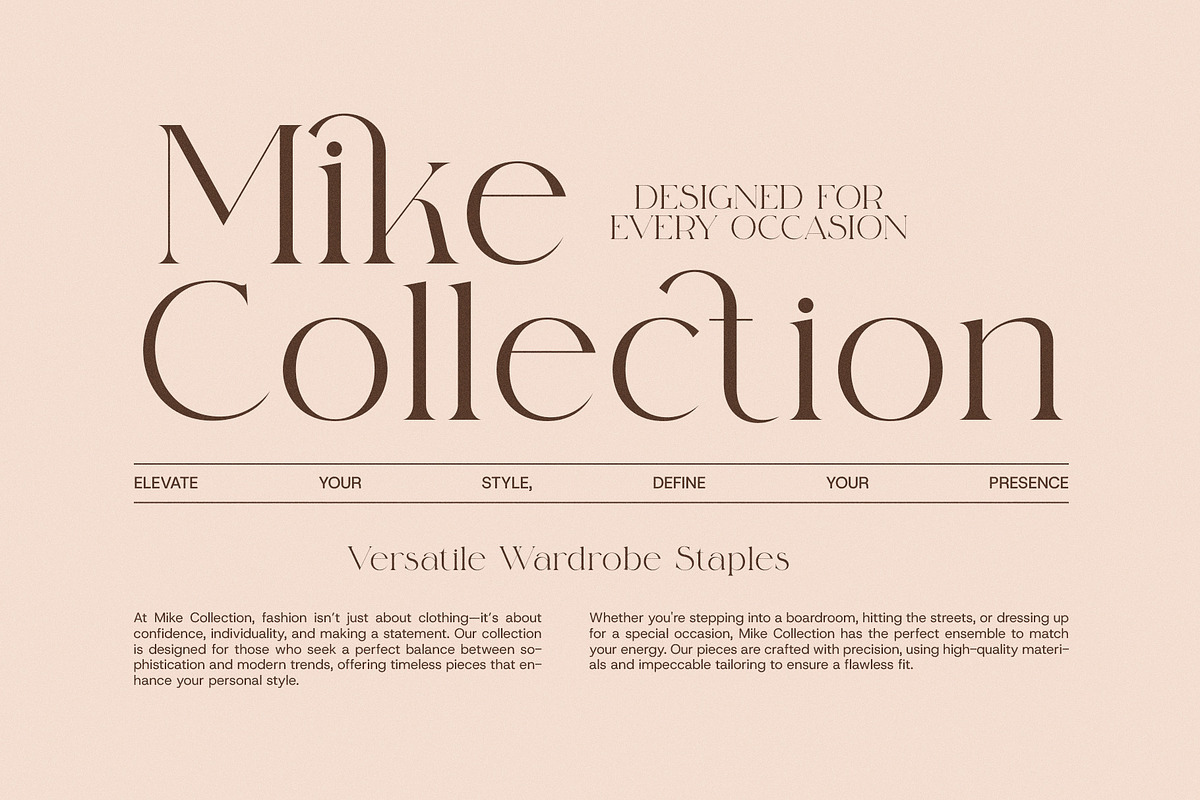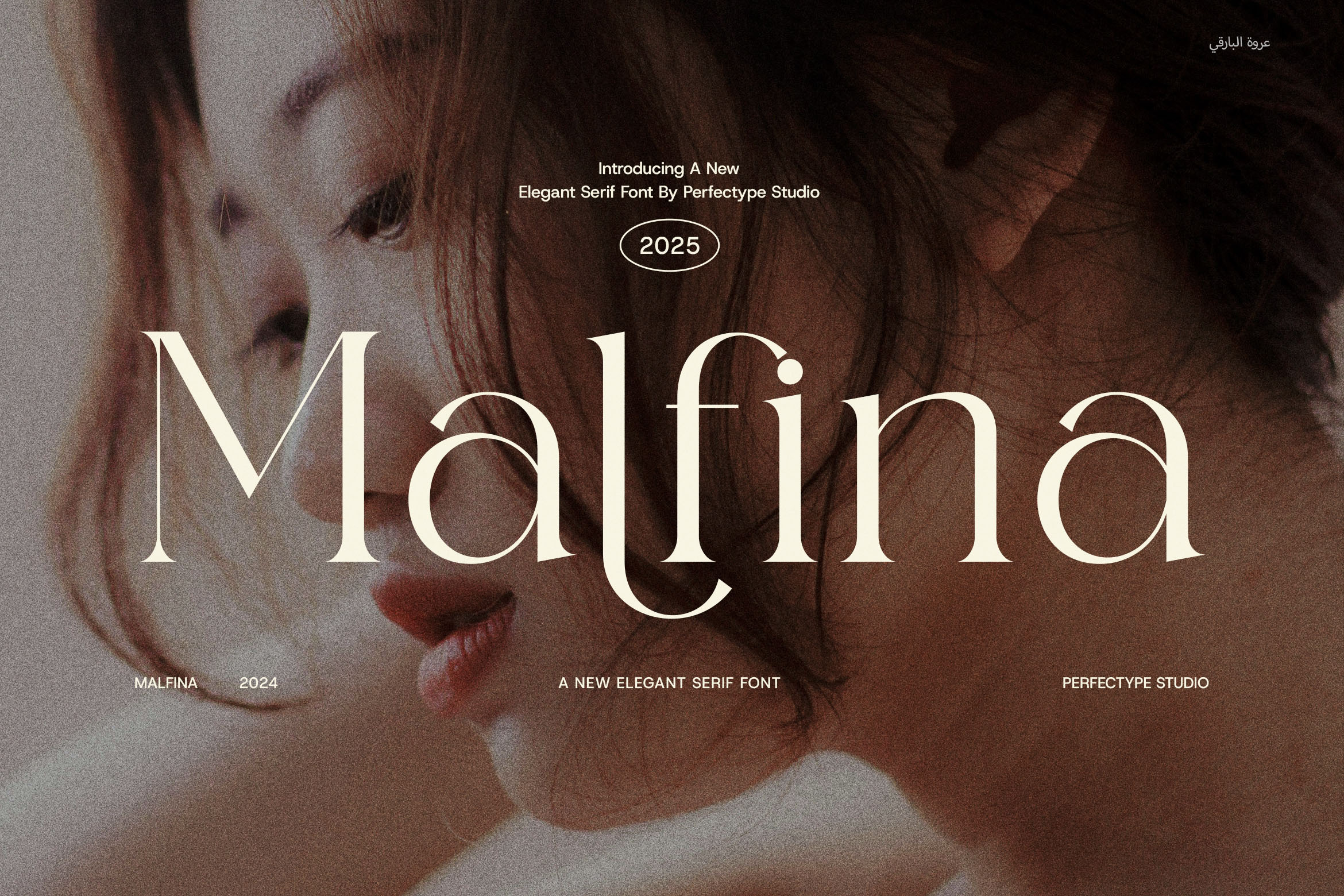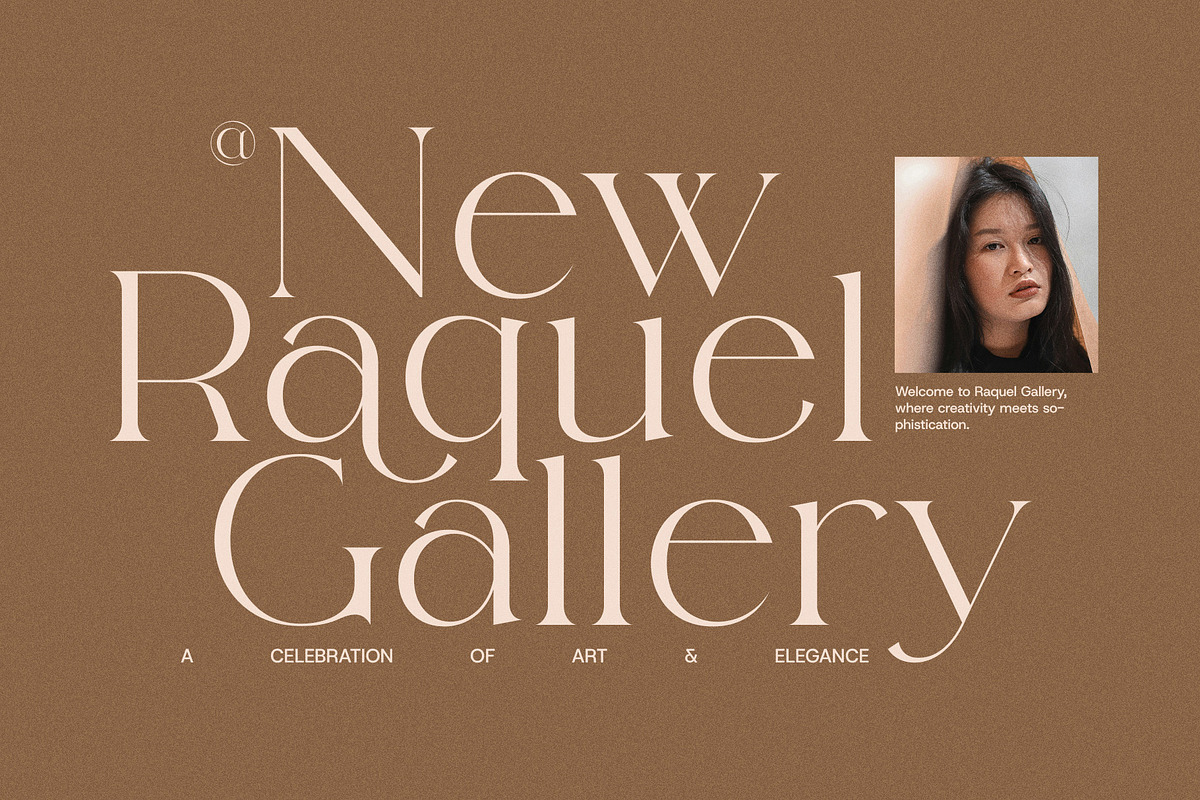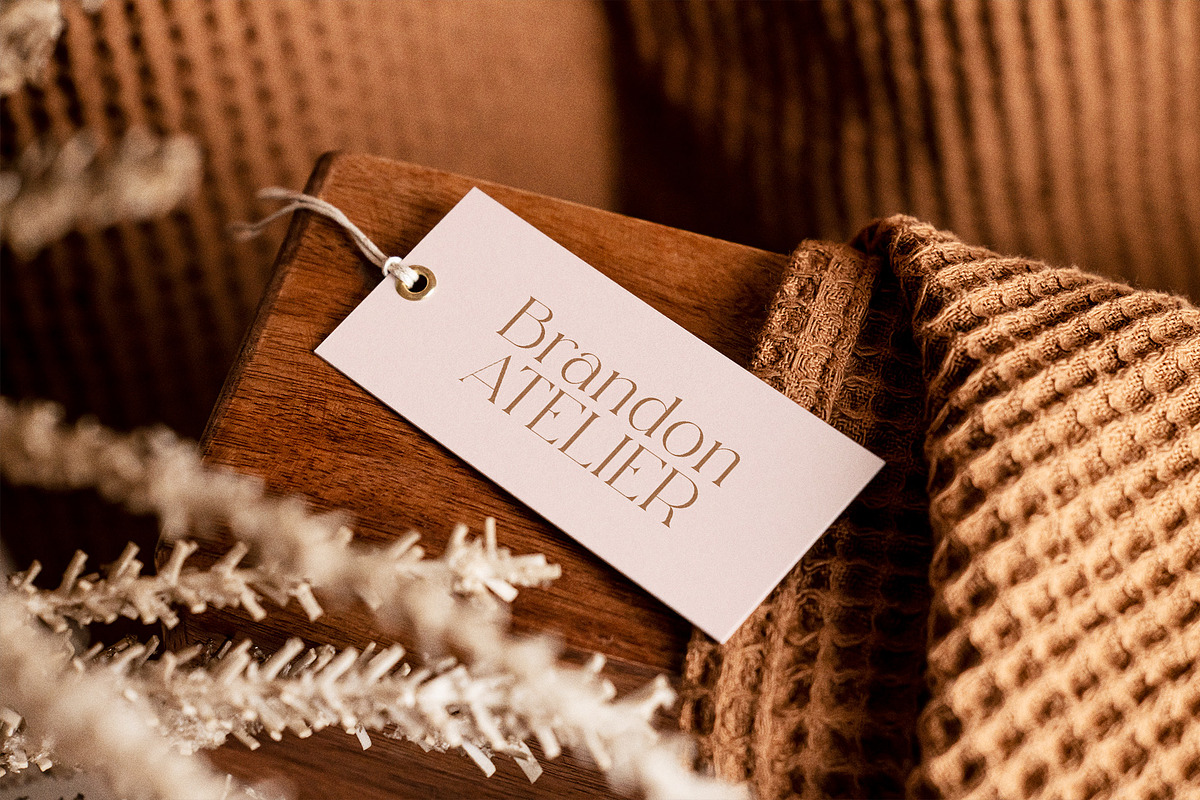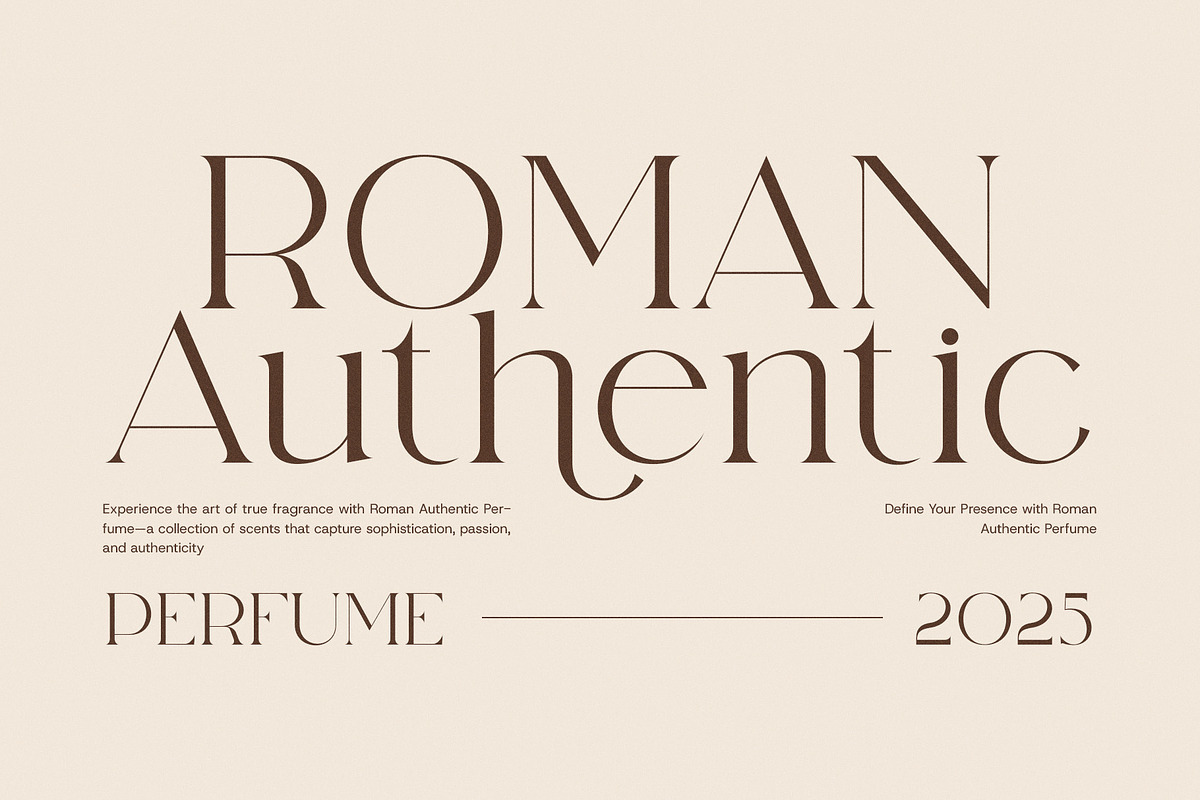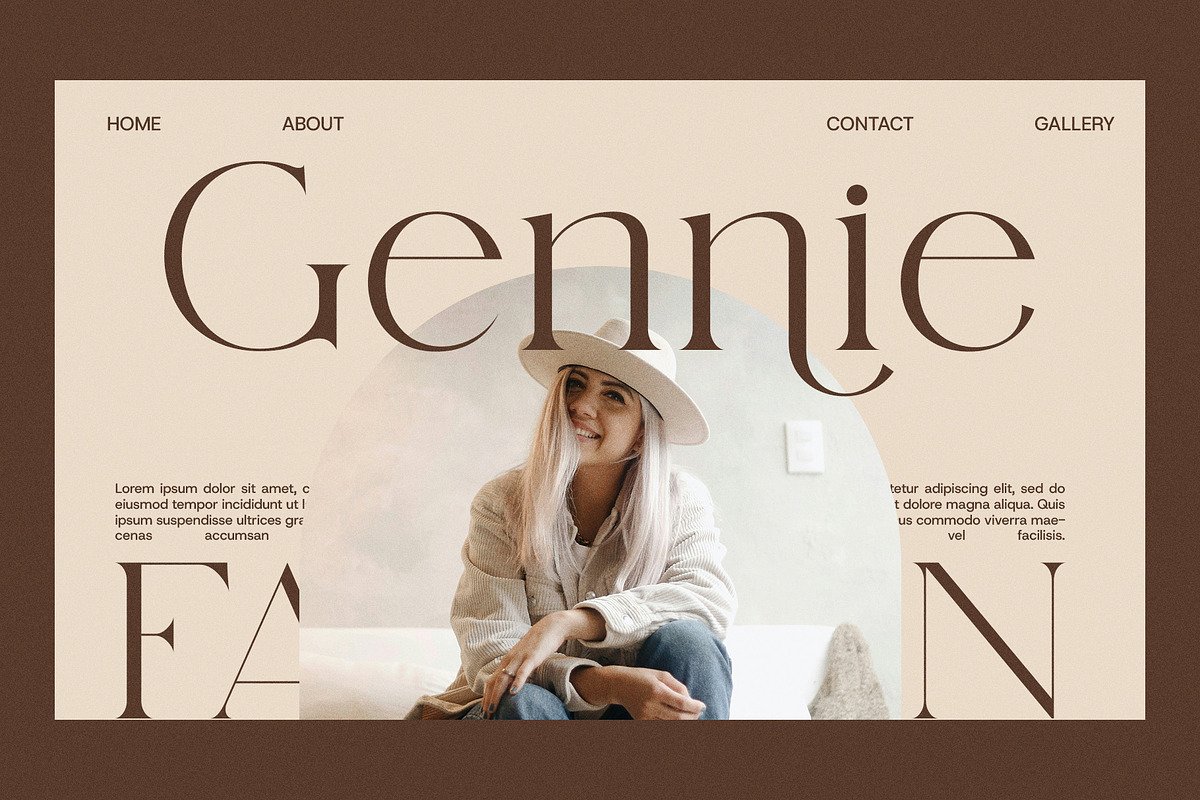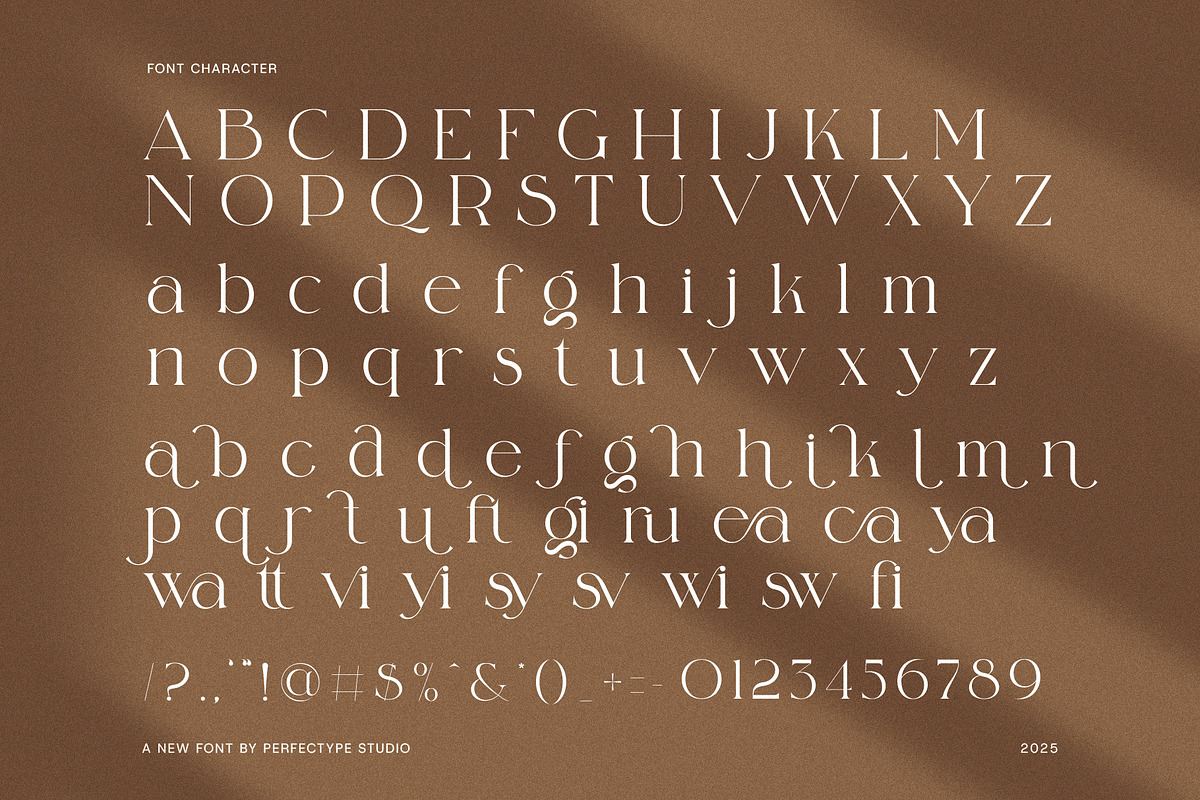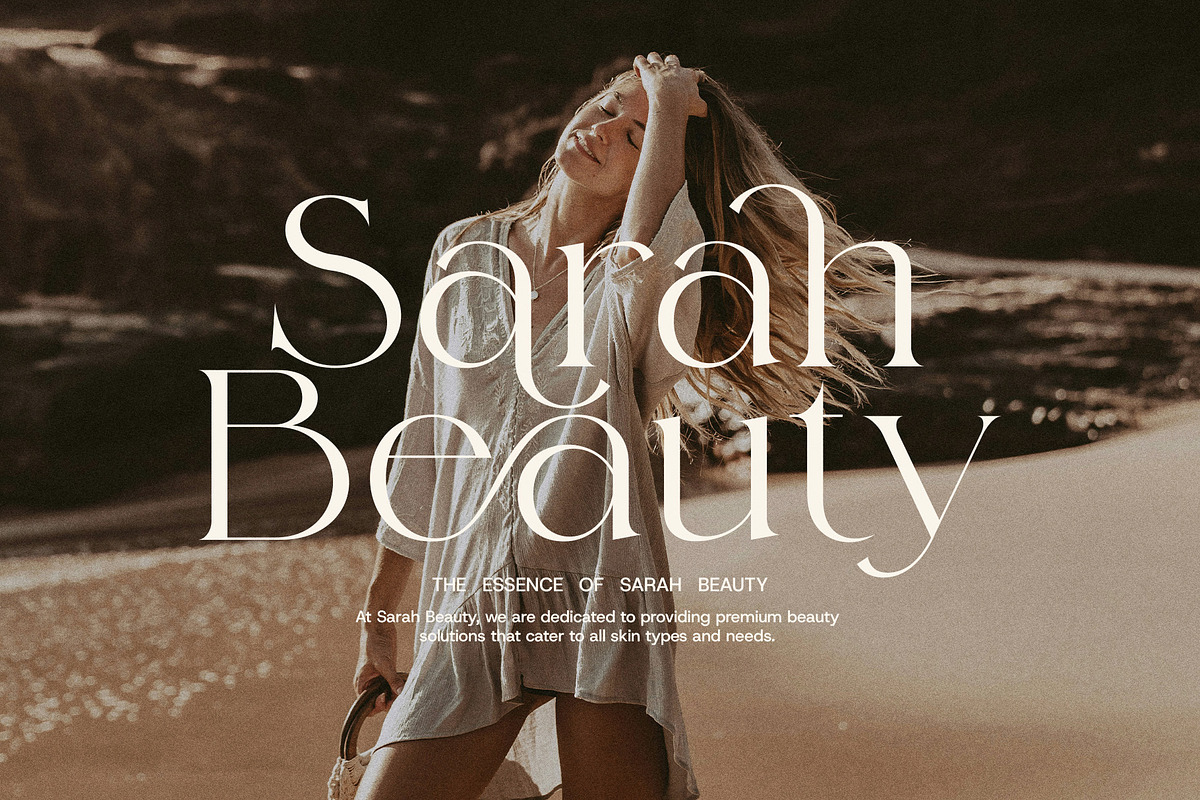
Malfina Elegant Serif Font
Introducing Malfina, a refined and stylish serif font that perfectly balances classic charm with a contemporary edge. Crafted for creators who value both beauty and functionality, Malfina is more than just a typeface — it’s a statement. With graceful curves, high-contrast strokes, and meticulously designed ligatures and alternates, this font brings a sense of elegance and individuality to every project.
Malfina is tailored for versatility. Whether you're designing luxury branding, high-end logos, minimalist editorial layouts, or captivating website headers, this font adapts seamlessly while maintaining a distinct presence. Its sophisticated serifs and unique typographic details make it an ideal choice for boutique packaging, fashion lookbooks, upscale magazine spreads, and modern advertising campaigns.
This font thrives in premium settings. Use it for product labels, wedding invitations, beauty and lifestyle blogs, or restaurant menus — wherever you need to infuse a touch of class and professionalism. The carefully balanced proportions and refined ligatures elevate your text, creating a harmonious flow that is both readable and visually engaging.
Malfina’s thoughtfully designed stylistic alternates allow for customization, giving you the freedom to create eye-catching titles or elegant logotypes. Its gentle curves and sculptural serif forms add a humanist warmth to an otherwise clean and minimal design, making it a perfect choice for modern luxury brands and creative studios alike.
If you're searching for a font that combines timeless elegance, creative flexibility, and modern sophistication, Malfina Elegant Serif is your go-to typeface. Ideal for designers, entrepreneurs, and creatives who want their work to stand out with polish and personality, Malfina brings a distinct voice to any visual narrative.